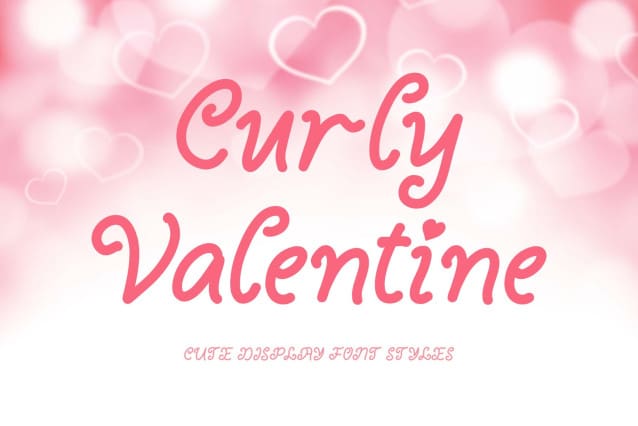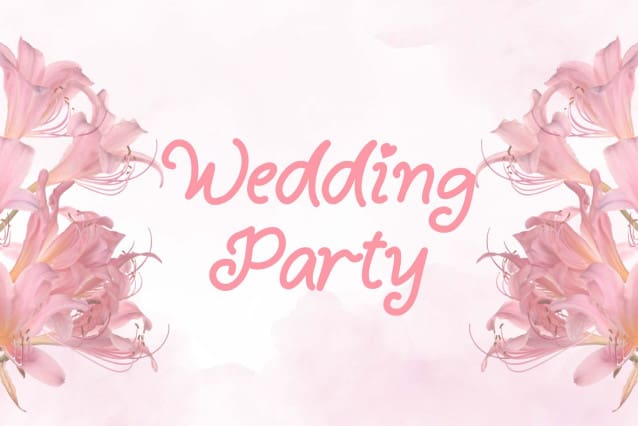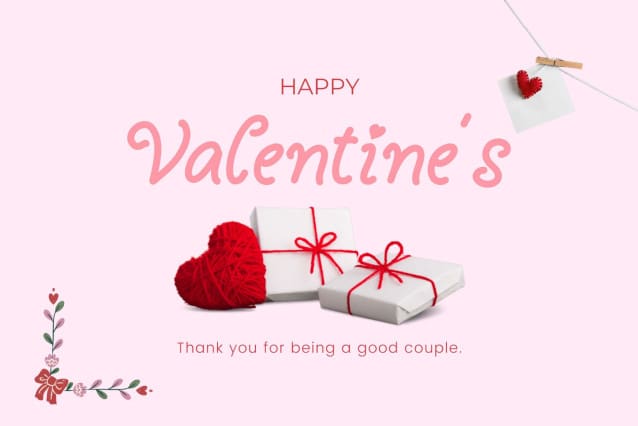
Curly Valentine Font
Curly Valentine Font is a beautiful and unique curly display font. Equipped with uppercase letters, lowercase letters, numerals, punctuation, and multilingual support. Very suitable for posters, banners, valentines, weddings, gifts, invitations, branding, stickers, Christmas, spring, winter, and others.